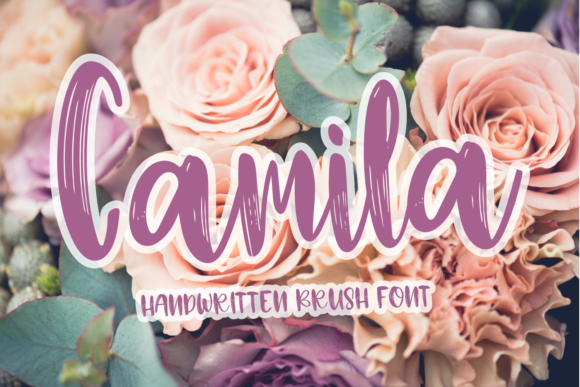
The Font that Stole my Heart: A Deep Dive into Camila Font
I still remember the frustration of working on a project, hours spent on perfecting every detail, only to be held back by one thing: the font. My client wanted something that would make their brand stand out, something fresh and fun, but I just couldn’t seem to find it. That was until I stumbled upon the Camila font. **It was love at first sight!** ✨
Camila is a fun and chunky display font that has become a staple in my design toolkit. Its well-rounded letters, which resemble brush strokes, add a touch of personality to any project. In this article, I’ll share my honest review of Camila, a step-by-step guide on how to use it on different platforms, and some valuable insights into its design and similar fonts.
My Honest Review of Camila Font
• ✨ Unique and playful design that’s perfect for creative projects
• ✅ Easy to read, even in large sizes
• 💡 Great for headlines, titles, and short texts
• 🎨 Works well with a variety of design styles, from modern to vintage
• 🤔 May not be the best choice for body text or long paragraphs
• ⚠️ Limited availability of stylistic alternates and glyphs in some platforms
One of the best things about Camila is its support for OpenType features and glyphs. These features allow you to customize your text and add a unique touch to your design. Some common OpenType features include:
• Ligatures: Combine two or more characters into a single glyph
• Stylistic alternates: Access alternative font styles, such as italic or bold
• Glyphs: Use special characters, such as ornaments or swashes, to add visual interest
The Story Behind Camila Font
Camila was designed with the intention of creating a font that would inspire creativity and playfulness. Its designer wanted to craft a font that would be both fun and functional, perfect for a variety of design projects. With its unique blend of modern and vintage elements, Camila has become a popular choice among designers and crafters alike.
Q: What is the best use for Camila font?
A: Camila is perfect for headlines, titles, and short texts. Its unique design makes it a great choice for creative projects, such as posters, flyers, and social media graphics.